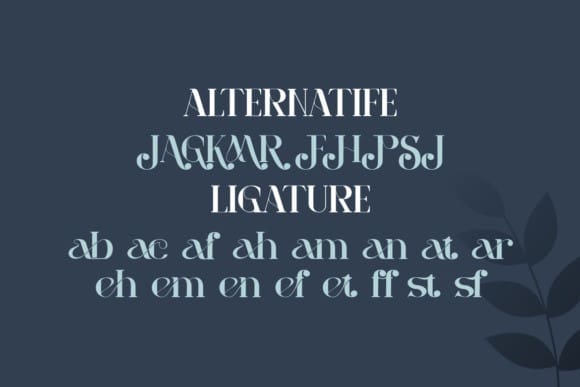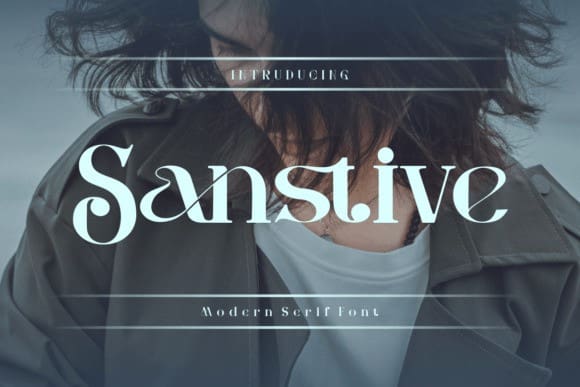
Sanstive Font
Sanstive Font is a sleek and contemporary serif font with a touch of elegance. Designed for fashion branding, editorial layouts, luxury packaging, and stylish logos, this font blends classic serifs with modern aesthetics, making it a versatile choice for high-end projects.